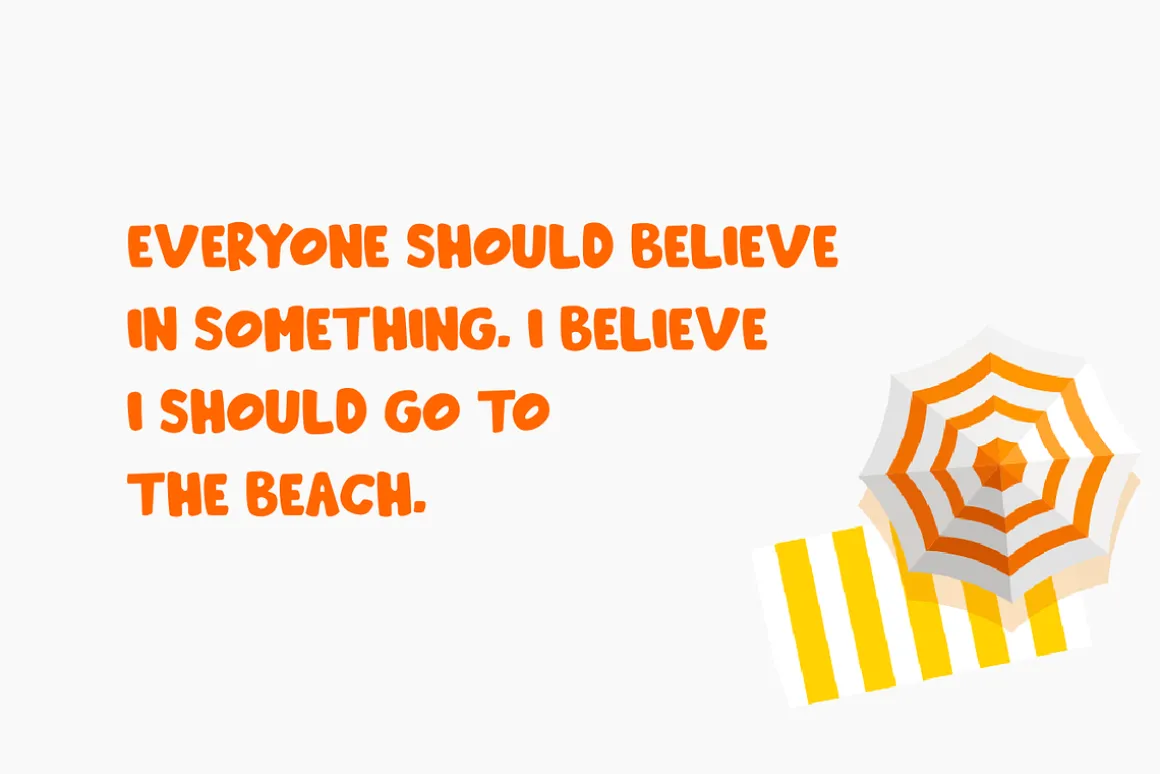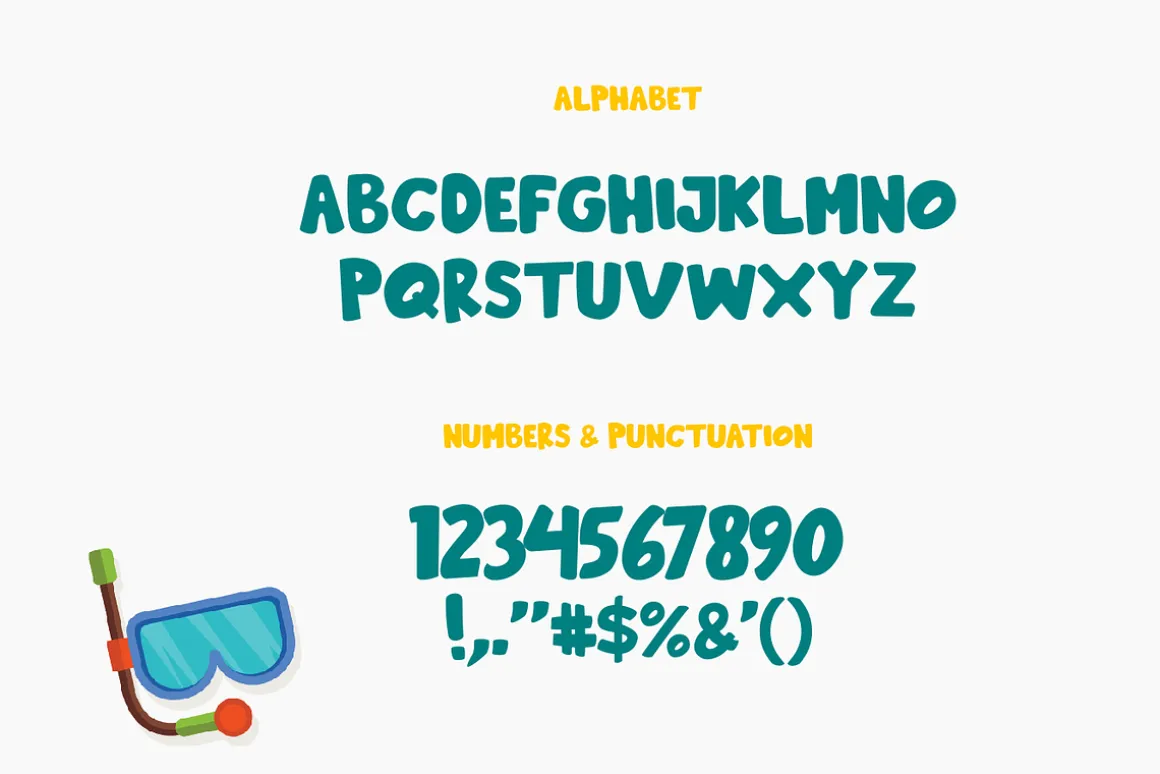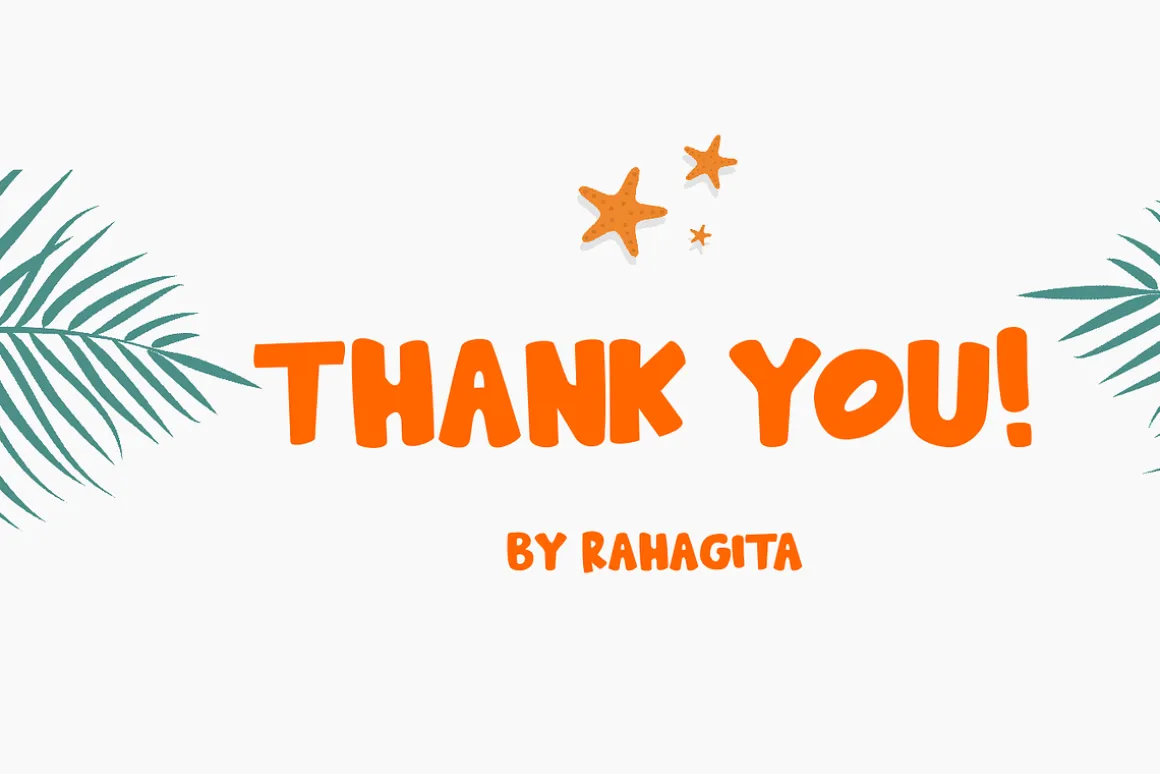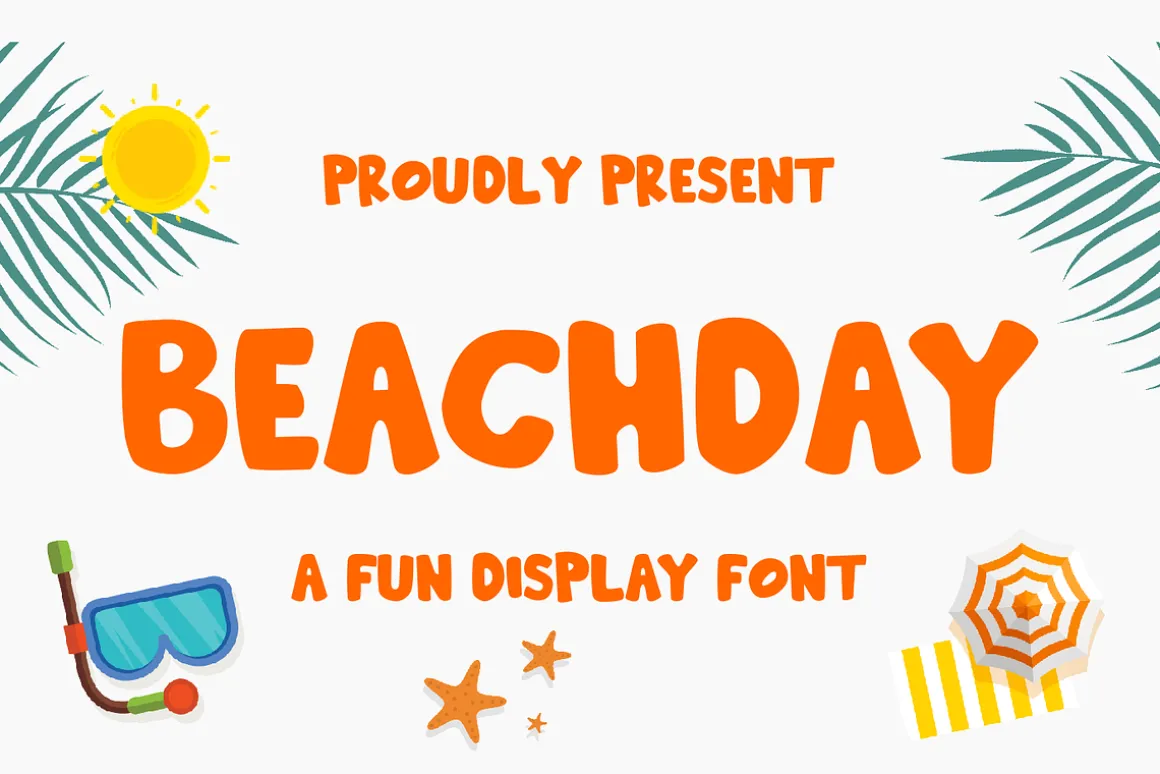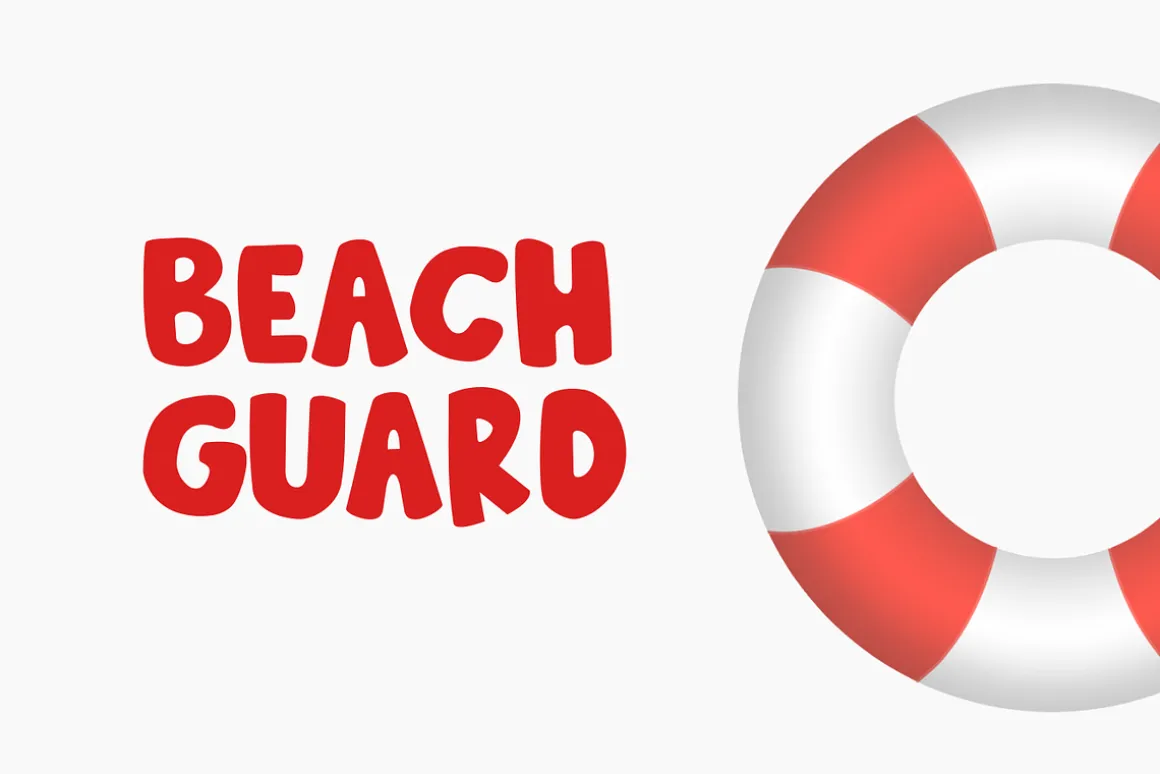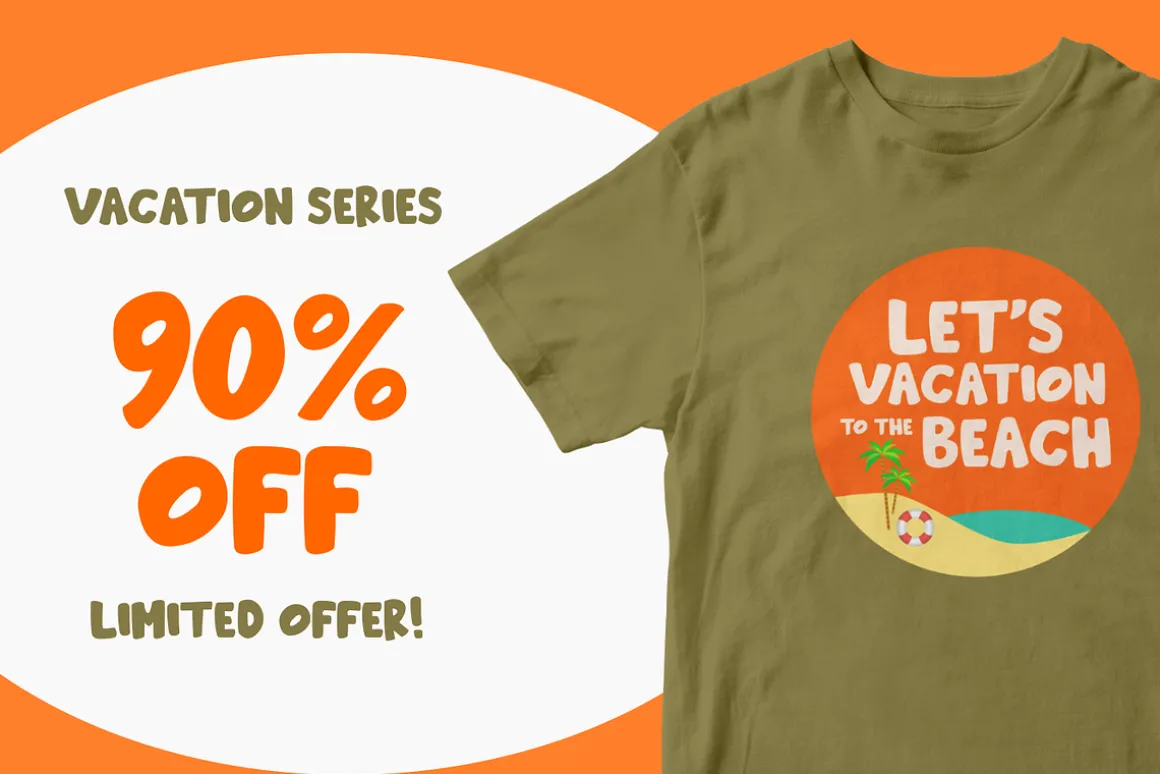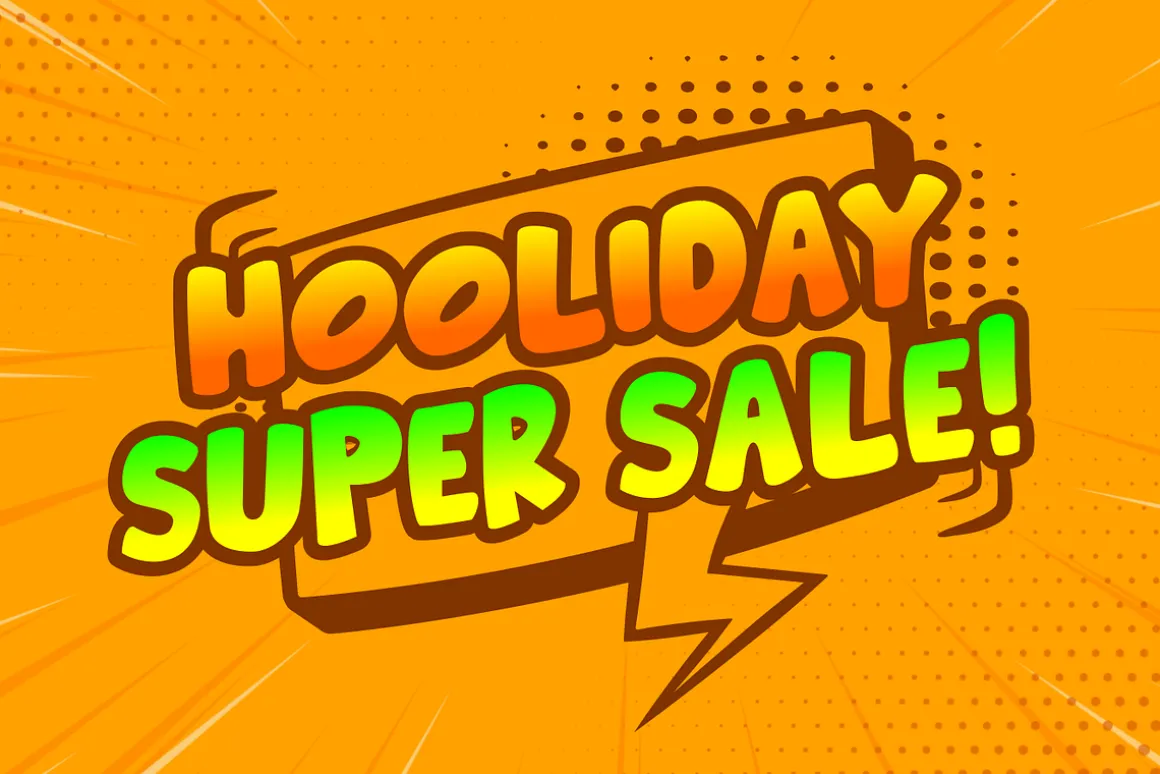
Beachday is a cheerful and playful typeface that is perfect for beach-themed designs. Irregular lines and bold, round letters make it easy to read from a distance. Use it for posters, logos, invitations, and more to add a touch of summer fun to your work.